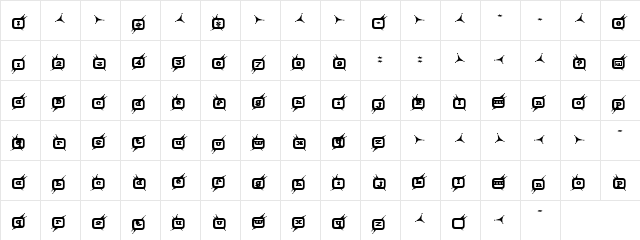
Hgot Box Regular
Design Context for Hgot Box Typeface
Hgot Box is a composed and adaptable typeface that performs quietly and consistently across a wide range of design contexts.